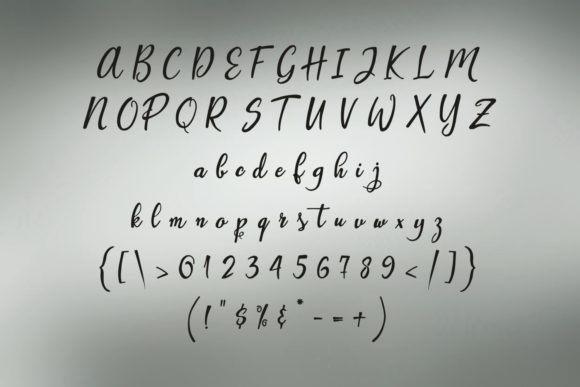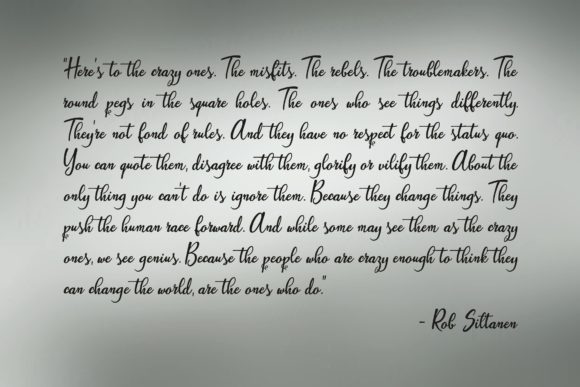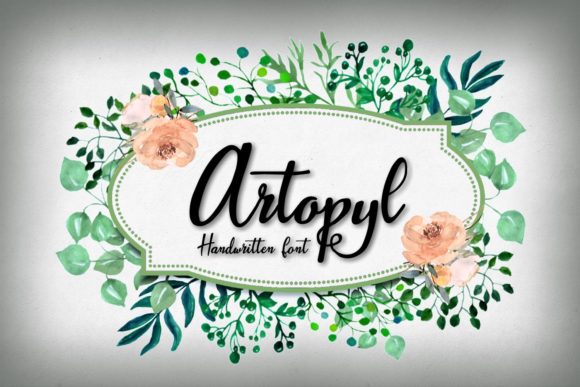
Discover the Charm of Artopyl Font: A Cute and Fun Script Font
Are you a designer or crafter looking for a font that can add a touch of personality to your projects? Look no further than Artopyl Font, a cute and fun script font that is sure to inspire your creativity. With its lovely feel and beautiful charm, Artopyl Font is the perfect choice for anyone looking to add a bit of whimsy to their designs.
What is Artopyl Font?
Artopyl Font is a script font that is designed to be both elegant and playful. Its unique and charming letterforms make it perfect for a variety of projects, from handmade crafts to digital designs. Whether you’re creating a logo, a greeting card, or a social media graphic, Artopyl Font is sure to add a touch of personality to your work.
Features of Artopyl Font
So, what makes Artopyl Font so special? Here are just a few of its key features:
- Cute and fun design: Artopyl Font has a playful and charming design that is sure to bring a smile to your face.
- Lovely feel: The font has a smooth and elegant feel that makes it perfect for a variety of projects.
- Script style: Artopyl Font is a script font, making it perfect for adding a touch of elegance and sophistication to your designs.
- Unique letterforms: Each letterform in Artopyl Font is unique and charming, making it perfect for adding personality to your designs.
Uses for Artopyl Font
So, what can you use Artopyl Font for? The possibilities are endless! Here are a few ideas to get you started:
- Handmade crafts: Artopyl Font is perfect for adding a personal touch to your handmade crafts, such as scrapbooking, card making, and journaling.
- Digital designs: The font is also perfect for digital designs, such as social media graphics, blog posts, and website headers.
- Logo design: Artopyl Font is a great choice for logo design, as its unique and charming letterforms make it perfect for creating a memorable brand identity.
- Greeting cards: The font is also perfect for creating greeting cards, as its elegant and playful design makes it perfect for expressing your feelings.
Tips for Using Artopyl Font
Here are a few tips for getting the most out of Artopyl Font:
- Use it sparingly: Artopyl Font is a bold and playful font, so it’s best to use it sparingly to add emphasis to your designs.
- Pair it with other fonts: The font pairs well with other fonts, such as sans serif fonts, to create a unique and interesting design.
- Experiment with colors: Artopyl Font looks great in a variety of colors, so don’t be afraid to experiment and find the perfect color for your design.
In conclusion, Artopyl Font is a cute and fun script font that is sure to add a touch of personality to your designs. With its lovely feel and beautiful charm, it’s the perfect choice for designers and crafters looking to add a bit of whimsy to their projects. Whether you’re creating a handmade craft or a digital design, Artopyl Font is sure to inspire your creativity and help you create something truly special.
Get Inspired by Artopyl Font